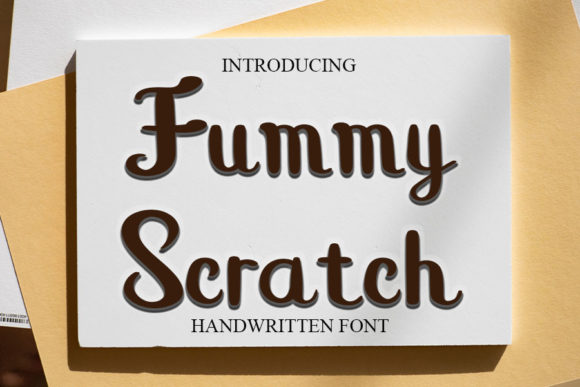
Fummy Scratch Font
Font Name : Fummy Scratch Font
Author : ONE DESIGN
Behold, the Fummy Scratch Font, a captivating creation by ONE DESIGN, designed to evoke a sense of charm and elegance in your digital creations. This script font exudes a delightful handwritten aesthetic, reminiscent of heartfelt love letters and delicate wedding vows. Its dainty strokes and joyful flair make it the perfect choice for adding a personal touch to your designs, whether it's a heartfelt invitation, a heartfelt greeting card, or a heartfelt piece of art.
Imagine the Fummy Scratch Font gracing your wedding invitations, adding a touch of romance and exclusivity to your special day. Let its graceful curves and playful characters capture the essence of your love story, inviting your guests to share in the joy and anticipation of your upcoming nuptials.
Unleash your creativity and explore the endless possibilities of the Fummy Scratch Font. Compose heartfelt letters that resonate with emotion or create unique designs that reflect your personal style. This font is a versatile companion for any project that calls for a touch of charm and sophistication.
With the Fummy Scratch Font, you'll discover a world of creative expression, where your words and designs come alive with a touch of magic. Its delicate strokes and playful characters will transform your digital creations into works of art, leaving a lasting impression on your audience.
Embrace the allure of the Fummy Scratch Font and embark on a journey of artistic exploration. Its timeless beauty and romantic charm will elevate your designs, making them stand out from the ordinary and leaving a lasting impression on all who encounter them.